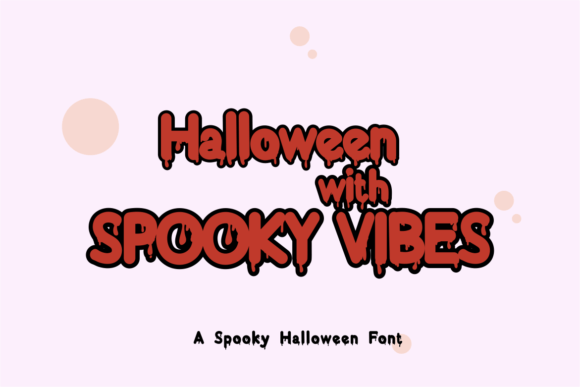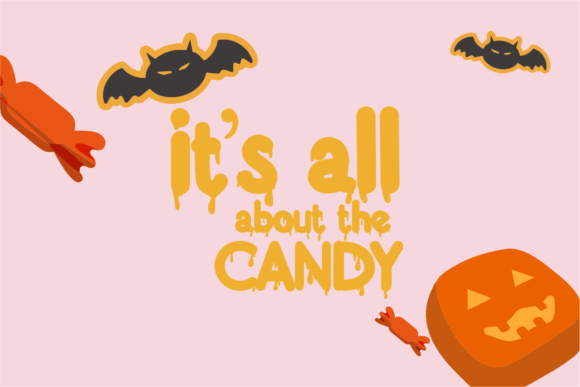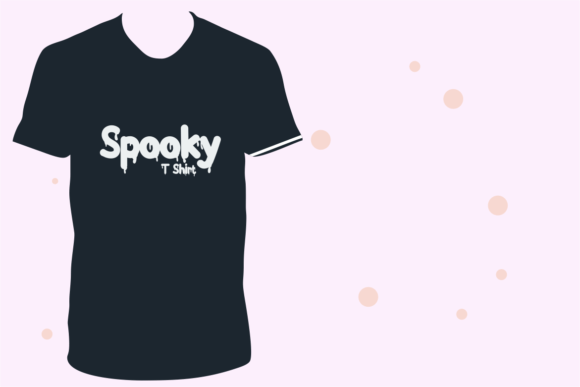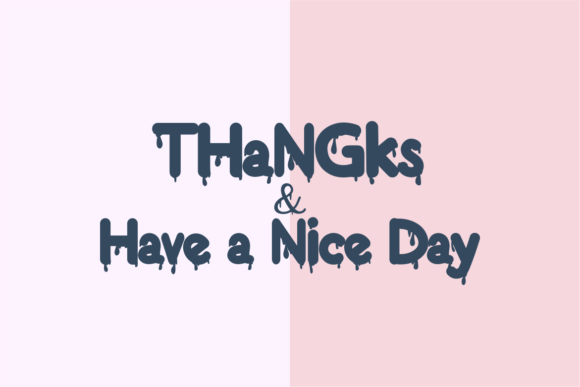
Burlween Day Font: Unleash the Eerie Charm of Halloween
As the spookiest time of the year approaches, designers and crafters are on the lookout for the perfect font to add a touch of eerie charm to their Halloween-themed projects. Look no further than Burlween Day Font, the ideal choice for any October-themed venture. With its suspenseful and dramatic flair, Burlween Day is sure to cast a mesmerizing spell on your audience.
Seamless Integration into Any Halloween Project
Burlween Day Font is designed to fit seamlessly into any Halloween-themed project, from party invitations to haunting web graphics. Its versatility and wide range of applications make it an excellent choice for designers and crafters looking to add a touch of spookiness to their work. Whether you’re creating:
- Halloween party invitations that will leave your guests in awe
- Haunting web graphics that will send shivers down your visitors’ spines
- Spine-tingling social media posts that will drive engagement
- Eerie event branding that will leave a lasting impression
Burlween Day Font is the perfect companion to help you conjure up a memorable and thrilling experience.
218 Glyphs at Your Disposal
One of the standout features of Burlween Day Font is its impressive count of 218 glyphs. This extensive character set provides you with a vast array of options to choose from, ensuring that your project stands out from the crowd. With Burlween Day, you can:
- Create intricate and detailed designs that tell a story
- Mix and match characters to create a unique aesthetic
- Experiment with different typography styles to add depth and texture
Each character in Burlween Day is meticulously crafted to breathe life and an unmatched aesthetic into your projects.
A Story in Every Character
What sets Burlween Day Font apart is the attention to detail and care that has gone into crafting each character. Every stroke, every curve, and every line has been carefully designed to create a sense of drama and suspense. Each character holds a story of its own, waiting to be brought to life in your project.
With Burlween Day, you can:
- Create a sense of foreboding with the perfect font choice
- Add a touch of whimsy and playfulness to your design
- Convey a sense of mystery and intrigue
Whether you’re a designer, crafter, or simply a Halloween enthusiast, Burlween Day Font is the perfect tool to help you tell your story.
Embark on a Thrilling Artistic Journey
With Burlween Day Font, you’re not just choosing a font – you’re embarking on a thrilling artistic journey. Every glyph casts a mesmerizing spell, drawing your audience in and refusing to let go. As you explore the world of Burlween Day, you’ll discover:
- A font that is both eerie and elegant
- A character set that is both versatile and extensive
- A design experience that is both intuitive and inspiring
So why settle for a generic font when you can have a font that adds an extra layer of magic to your project?
Who Wouldn’t Want a Bit of Halloween Charm?
In the world of design, it’s often the little details that make a big difference. With Burlween Day Font, you can add a touch of Halloween charm to your project and make it truly unforgettable. Whether you’re a seasoned designer or a crafty enthusiast, Burlween Day is the perfect choice for anyone looking to:
- Create a lasting impression
- Add a touch of personality to their design
- Stand out from the crowd
So why not give Burlween Day Font a try? With its eerie charm, suspenseful flair, and extensive character set, it’s the perfect addition to any Halloween-themed project.